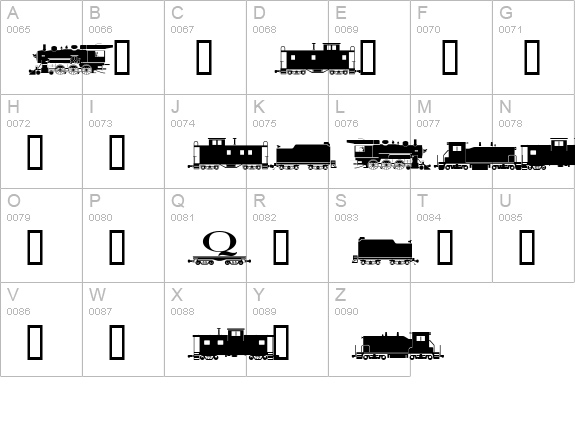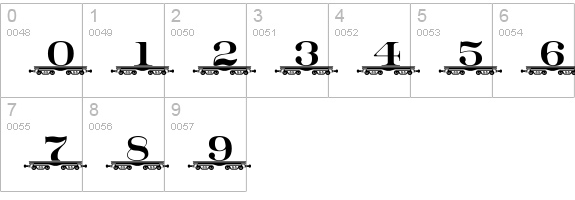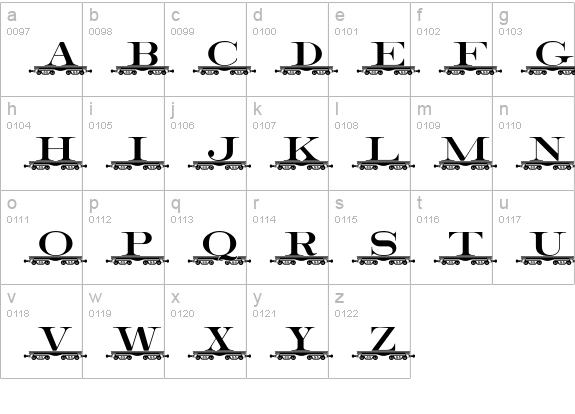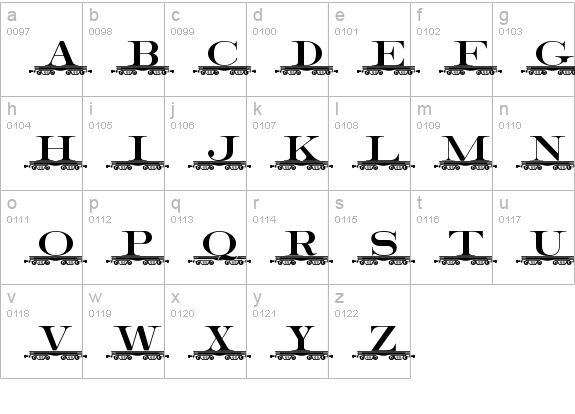
AlphabetTrain Font Details
AlphabetTrain is a whimsical and playful font that brings a sense of fun and creativity to any project. This font features charming and unique letter designs that resemble train tracks, adding a touch of nostalgia and adventure to your text. Perfect for children's books, posters, invitations, and more, AlphabetTrain is sure to captivate and delight audiences of all ages. Best of all, AlphabetTrain is completely free to download at FontsMarket.com. Simply visit the website and start using this delightful font in your designs today. Let your imagination run wild with AlphabetTrain and watch as your creations come to life with its enchanting and eye-catching style.